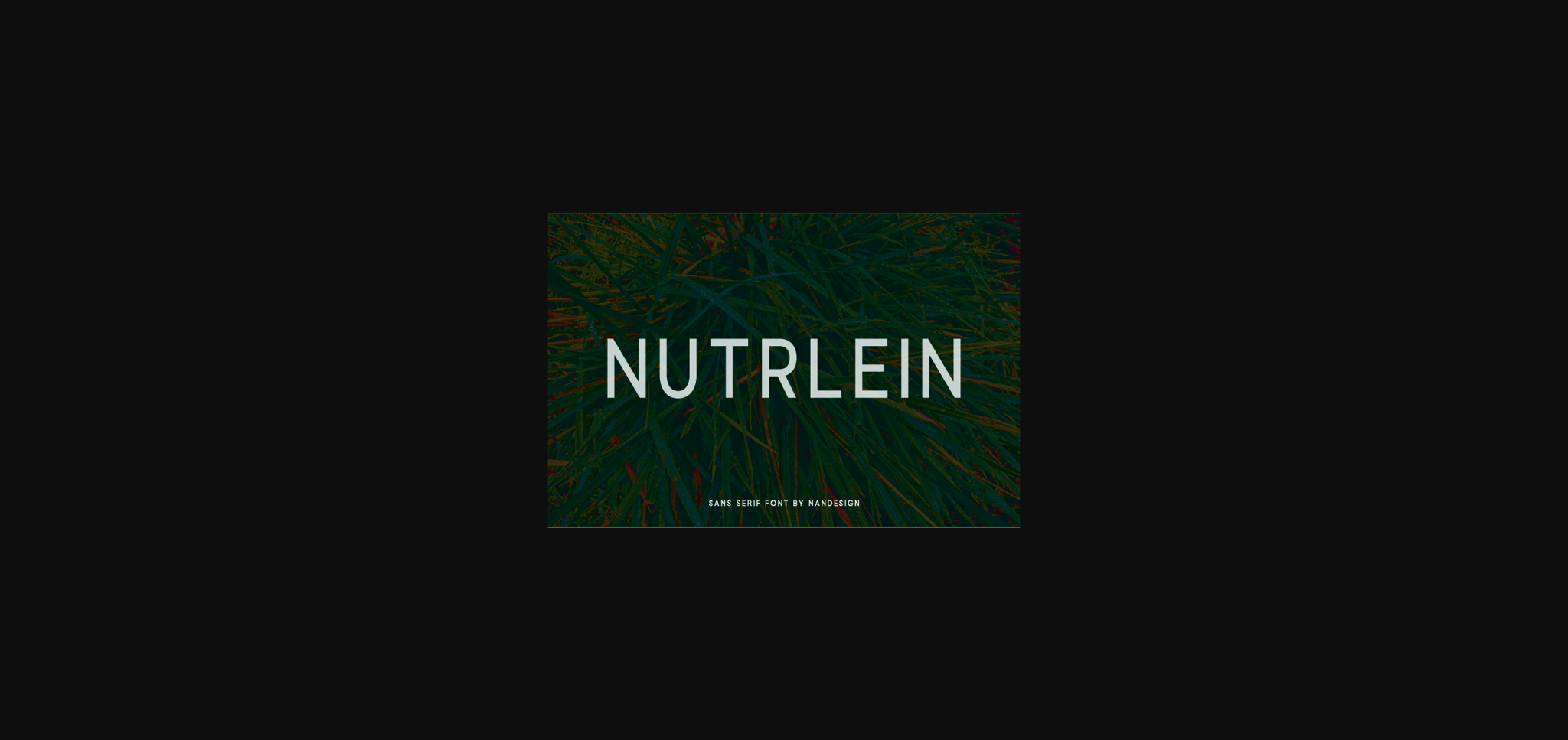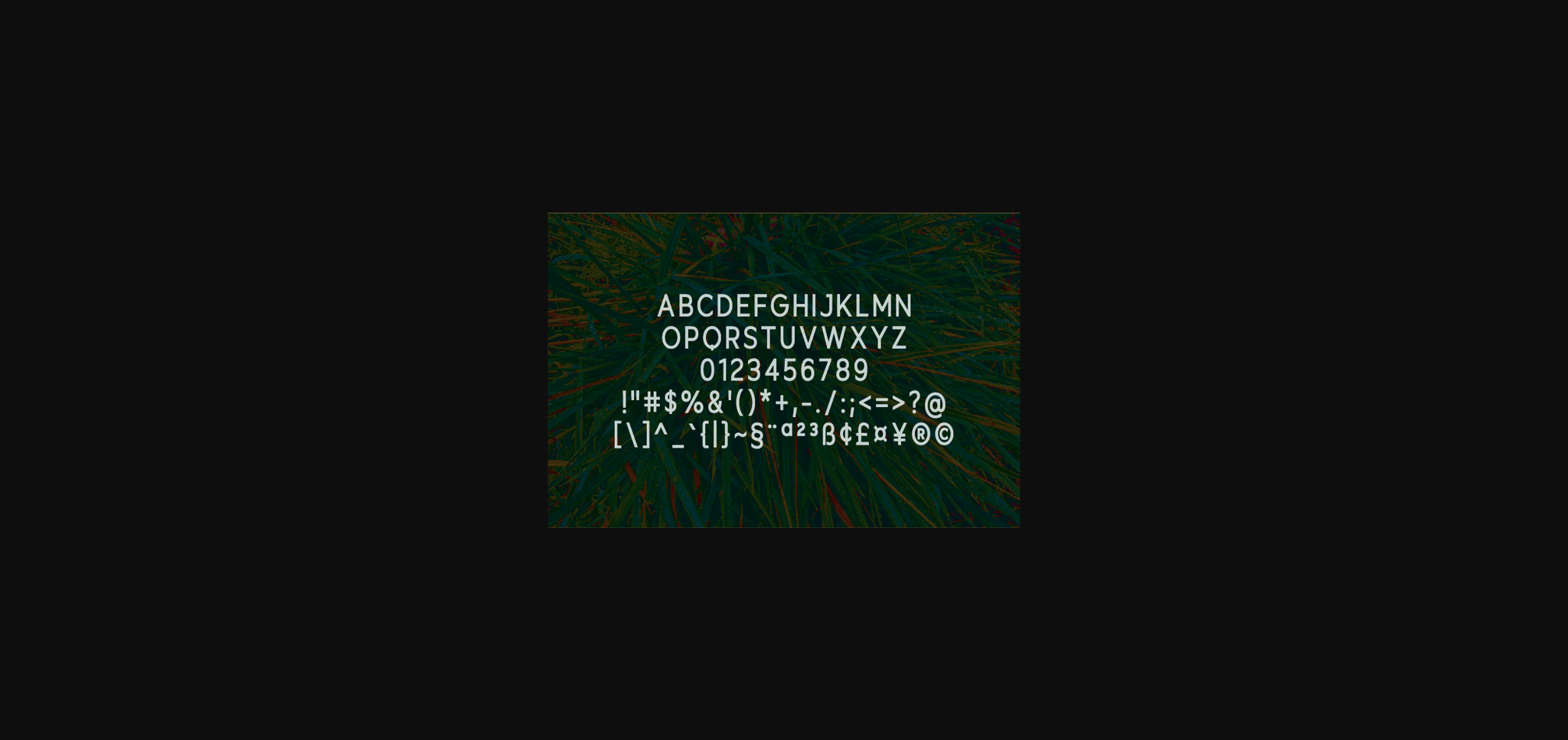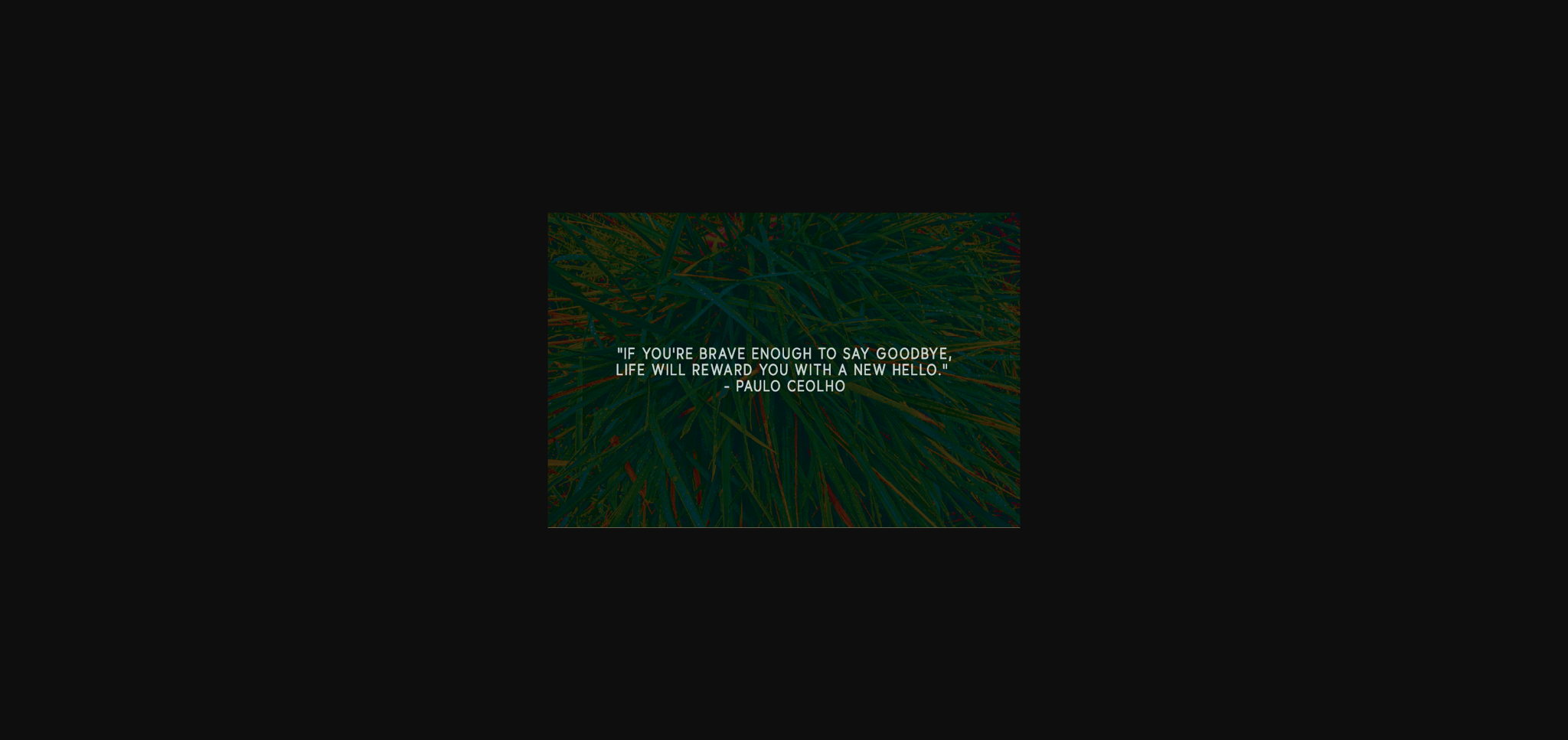
About Nutrlein Font
Nutrlein is a simple and fine sans serif font. It can easily be matched to an incredibly large set of projects, so add it to your creative ideas and notice how it makes them stand out!